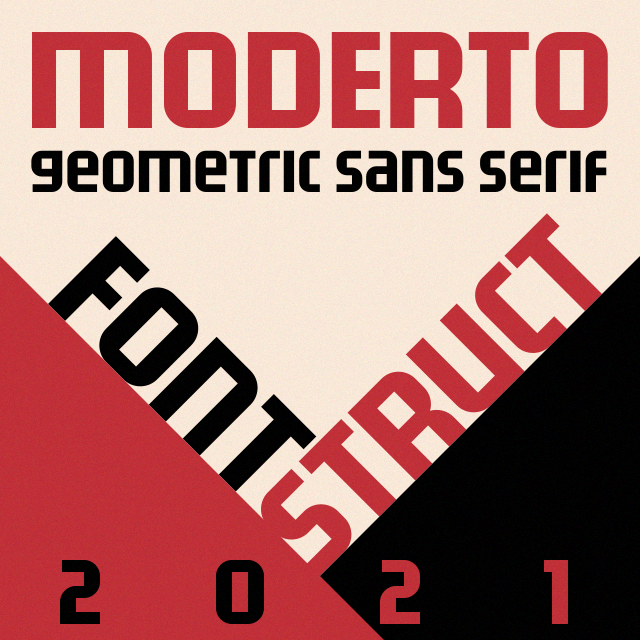
This V is fantastic. I've left a couple of fonts out for the same reason, ? . I'd like you to try repeating those down parts of the V in other glyphs. That would give the font an extra personality, IMHO...
As I understand this font is inspired by the Futura Display. As in it, I would like to see A. rounded on both sides and Q without a dot, it stands out too much.
The rest is very clean and nice.
@Sychoff Indeed, it was inspired by it. Personally I like the A and Q, but I added alternates.